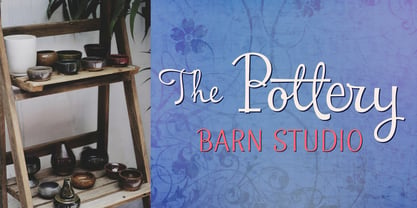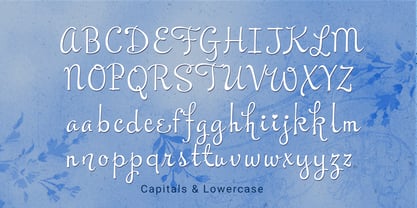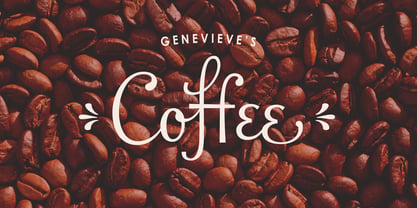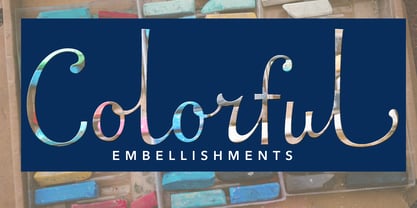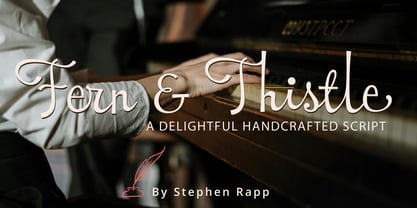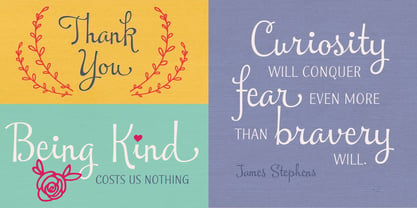
Fern and Thistle
par Stephen Rapp
La famille de polices Fern and Thistle a été conçue par Stephen W. Rapp et publiée par Stephen Rapp. Fern and Thistle contient 3 styles et options de package familial. En savoir plus sur cette famille
Fern and Thistle is an informal and delightfully modern script with a personality all its own. It is finely crafted, yet not so serious. Combined with the Cap versions, you’ll have a palette that can play many roles. Use it for cards, invitations, book covers, branding, menus, newsletters, and blogs. The main version has loads of stylistic character alternatives, ligatures, and unique alternate ligatures as well. All are quickly available via feature coding and the glyph palette. Along with the pro-level script font is an all caps font. Combined, the three offer a thorough array of design possibilities. While looking much like DIY script, under the hood are precise connections and carefully thought out glyph substitutions. There are many options for letters and ligatures to add some extra flair.
Stephen Rapp is based out of Kent, OH. He came to type design through his work as a lettering artist at American Greetings. Having studied with many of the best calligraphers, Stephen has taught workshops across the nation and at international conferences. Pulling from his expertise with calligraphy and lettering he develops fonts designed to be both well crafted and user friendly. He also designs and develops proprietary fonts to meet the needs for both companies and individuals. His commercial fonts have garnered awards like the Type Director’s Club award.